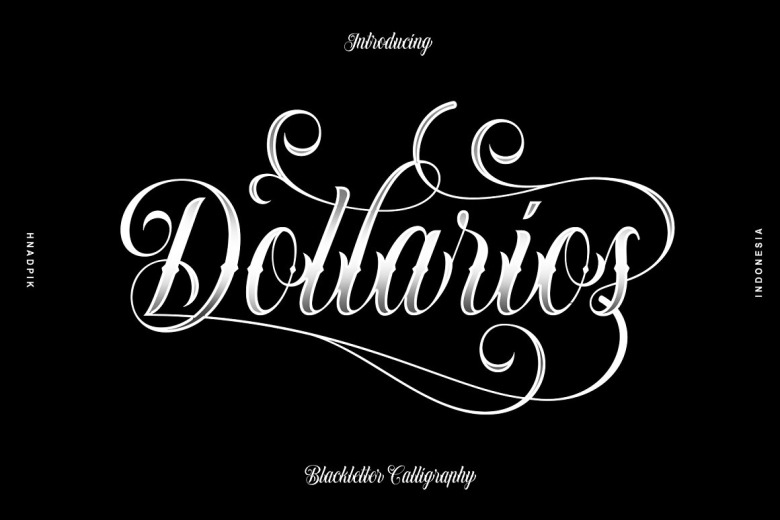
Dollarios Font
Dollariosis a font with modern black letter calligraphy font style that can be interpreted as a form suitable to create creativity in the work of logos, bands, posters and others. This font is also PUA encoded – which means that you can access all of glyphs and swashes with ease!
Dollarios Blackletter Calligraphy Font